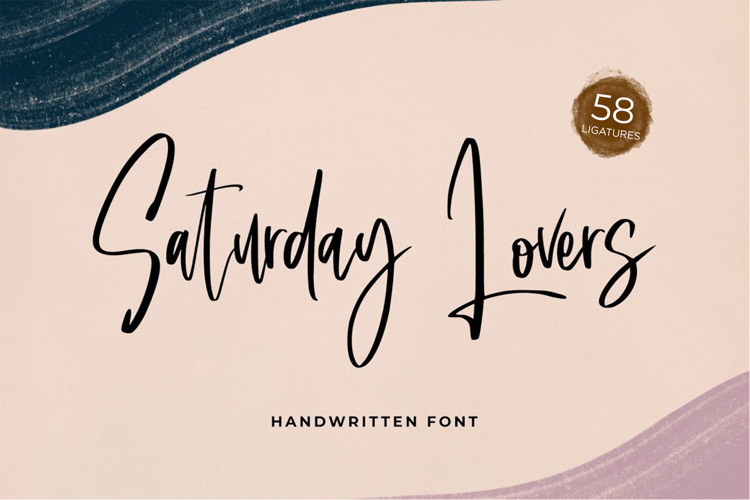
Saturday Lovers Font
Product Description :
Saturday Lovers Font. With a classy and natural handwritten style, it brings a classy and chic typeface. Saturday Lovers is best used for branding, social media campaign, logotype, quotes and etc.
Features include:
• Ligatures
• Multilingual Supports
• Numerals and Punctuations